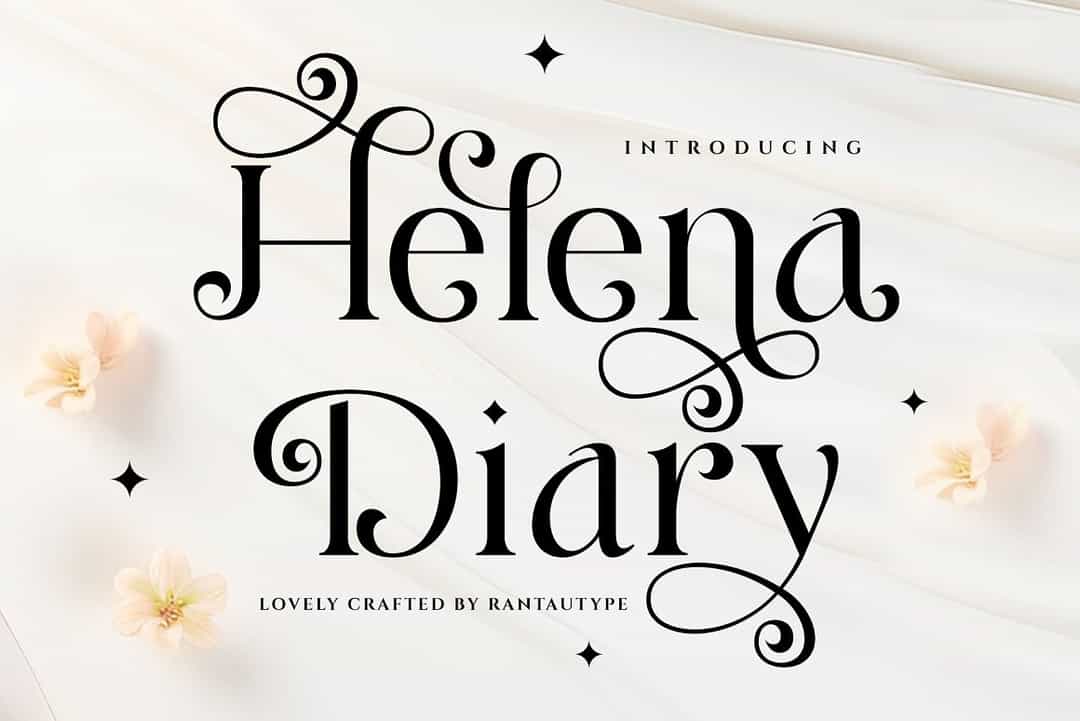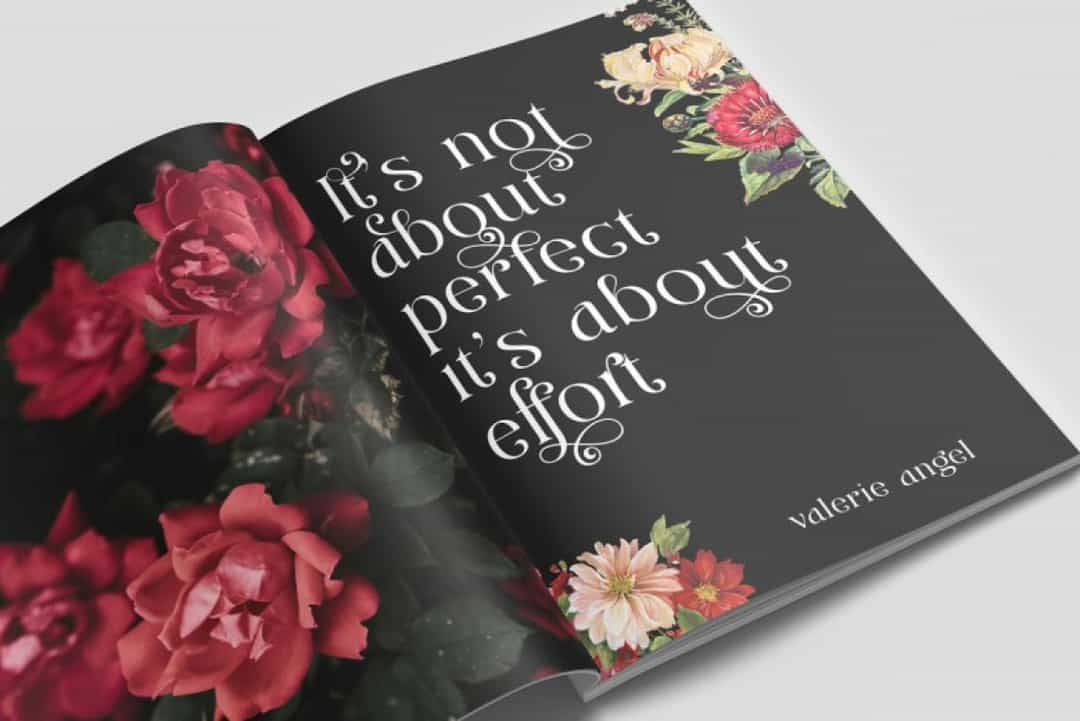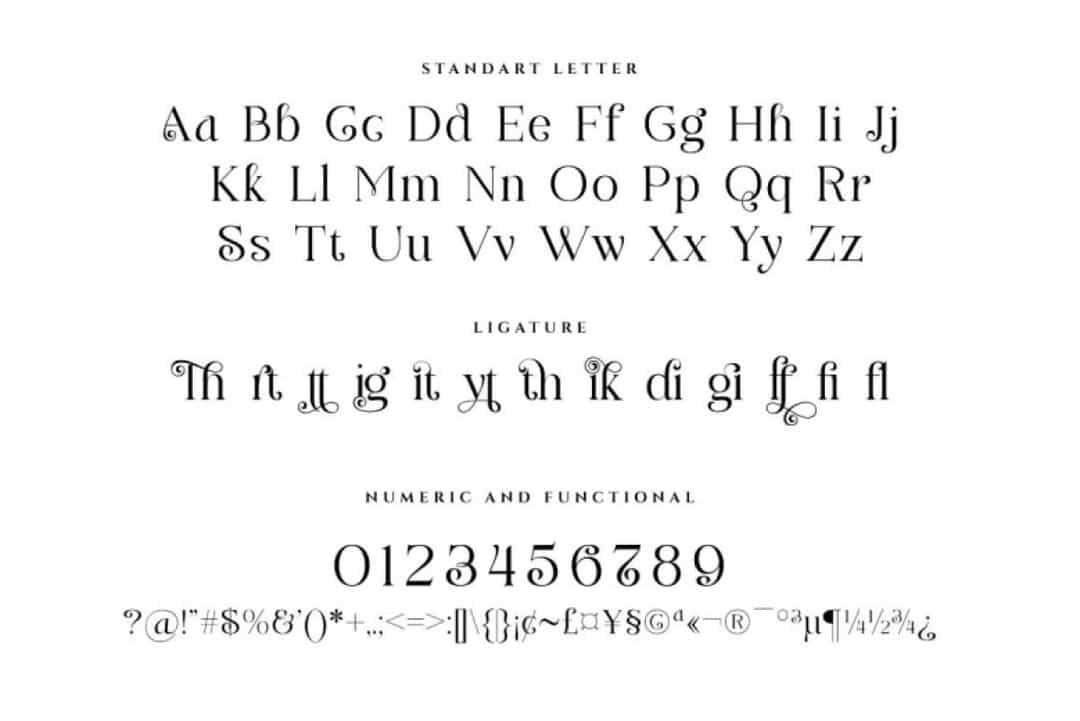
Helena Diary is an elegant feminine display serif font that stands as a testament to beauty and grace. Its delicate curves and luxurious elements give an air of femininity, creating a sense of femininity while the gorgeous alternate stylist adds another level of class and elegance for editorial and branding designs alike. Helena Diary brings class and elegance into editorial and branding designs and more, bringing modernity and class in editorial designs as well.